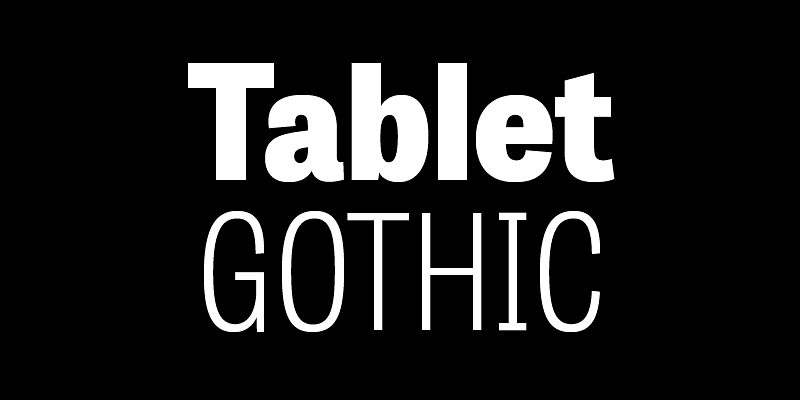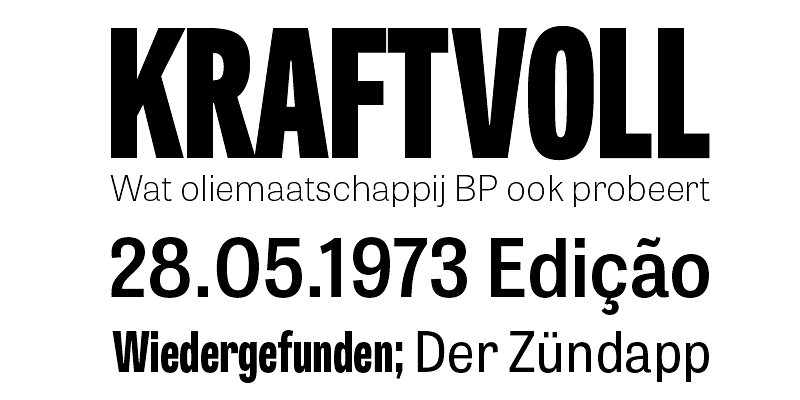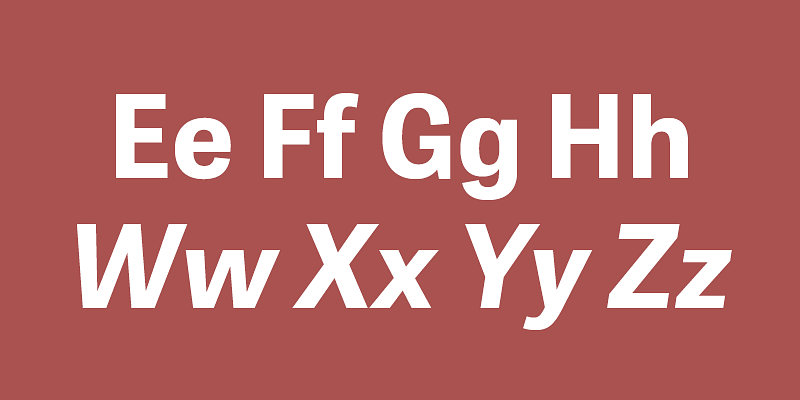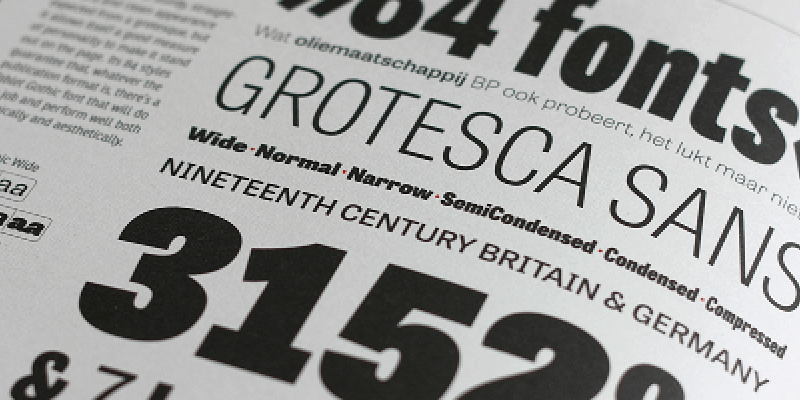
Tablet Gothic delivers the sturdy, straightforward, and clean appearance expected from a grotesque grounded in 19th century Britain and Germany, and allows itself a good measure of personality to stand out on the page. Its exhaustive 84 styles — six series of widths and seven weights in each series, plus matching obliques — guarantee that, whatever the need, there’s at least one Tablet Gothic style that performs well both technically and aesthetically. Its almost-vertical axis is one key allowing Tablet Gothic to come in a wide range of styles without losing its signature look. The Wide, Normal, and Narrow widths therefore produce a beautiful texture and highly readable text blocks at small sizes.